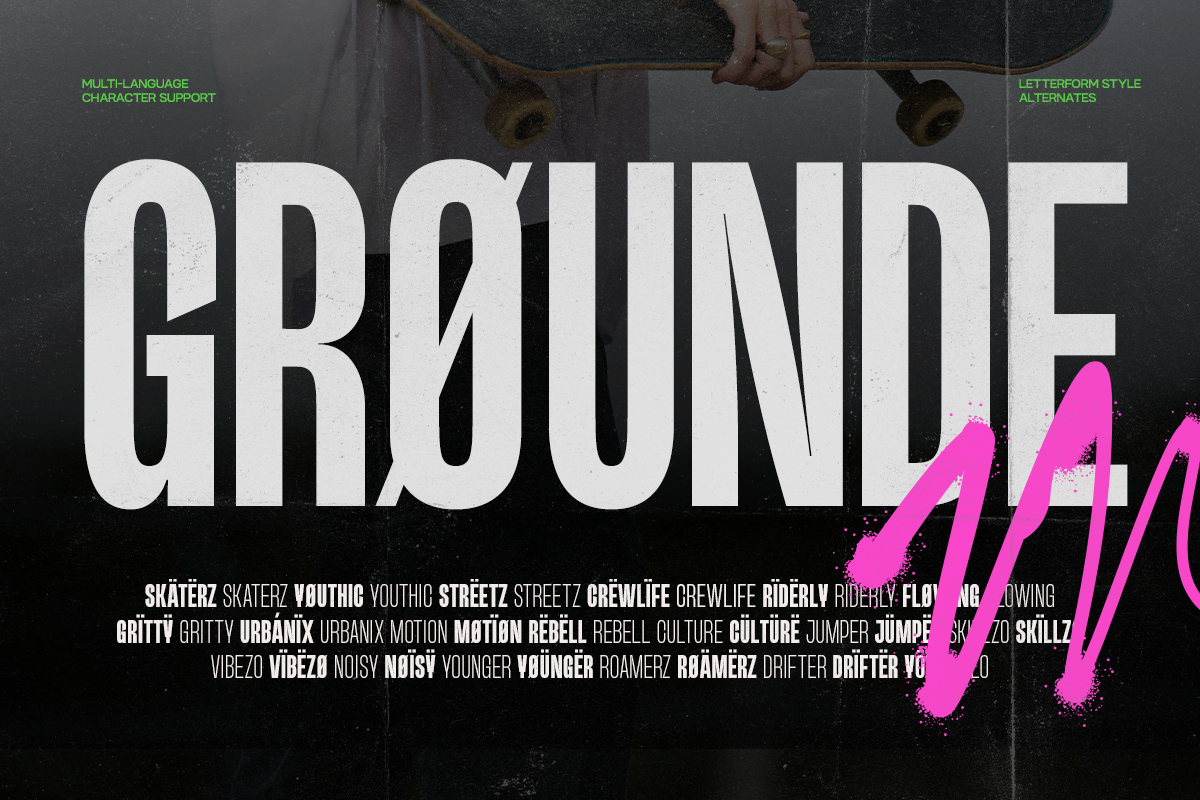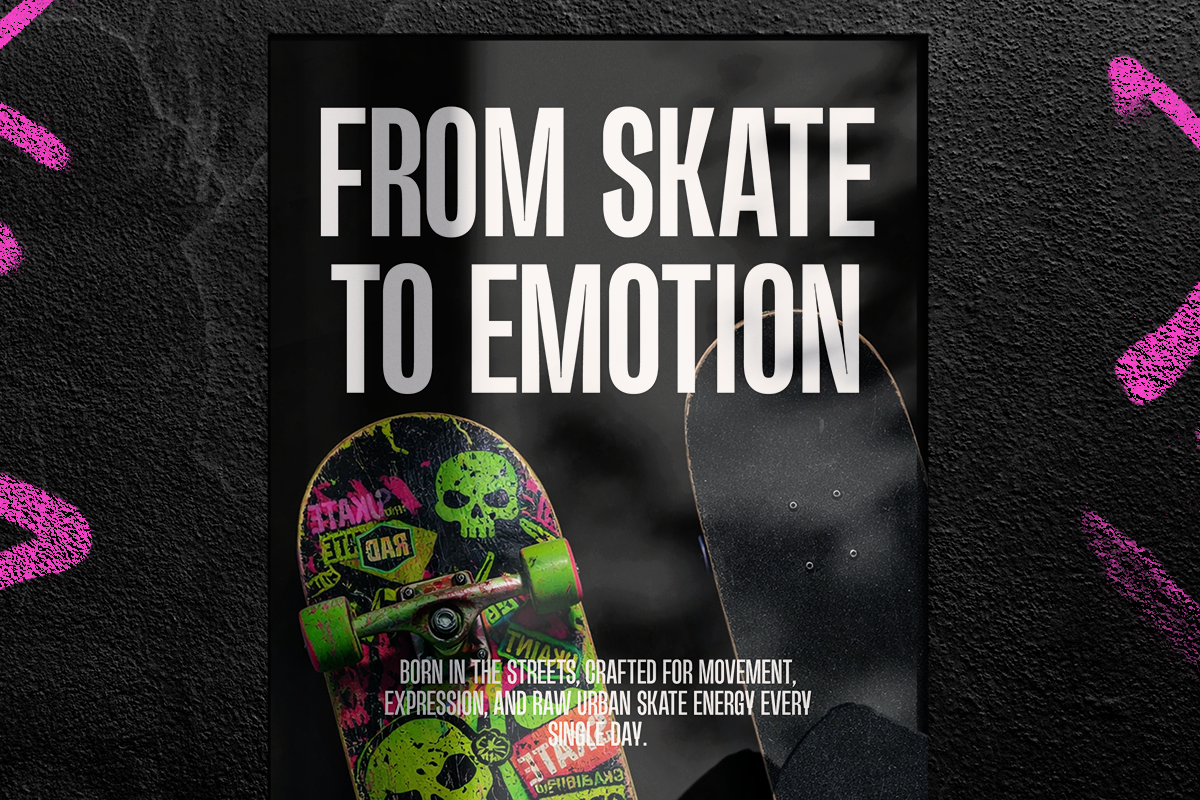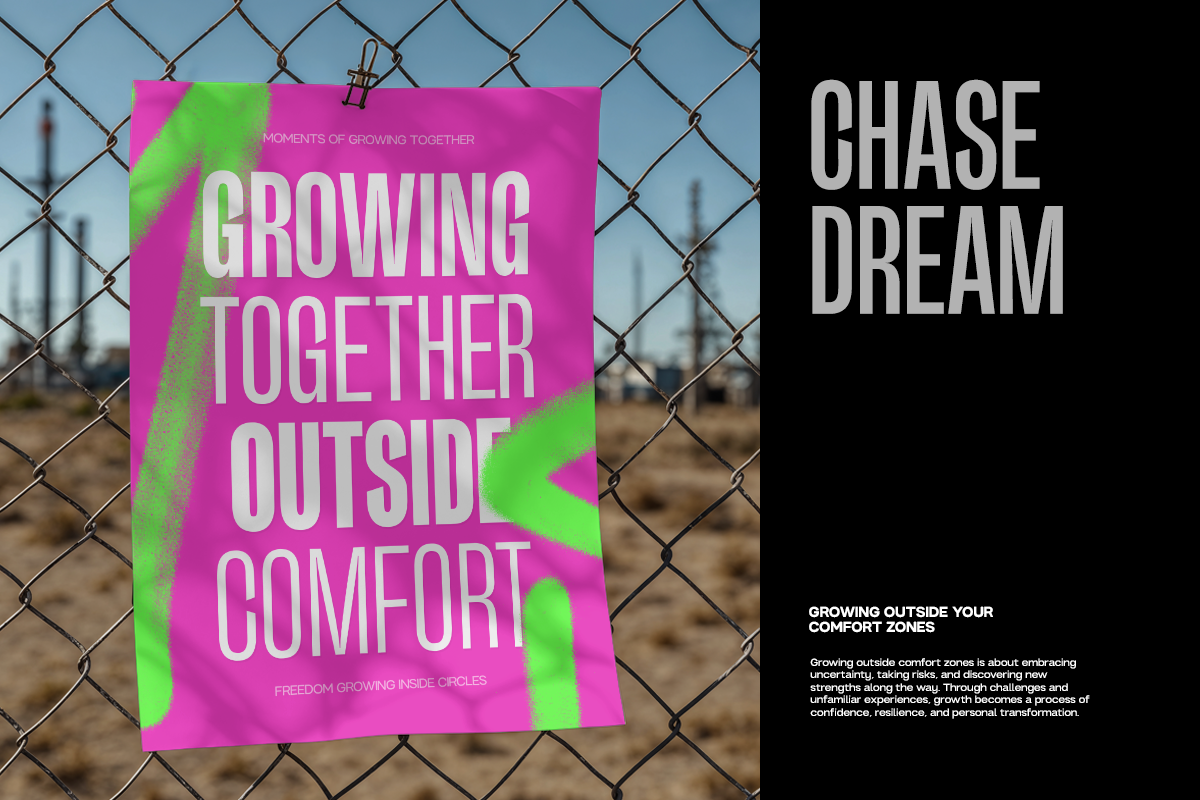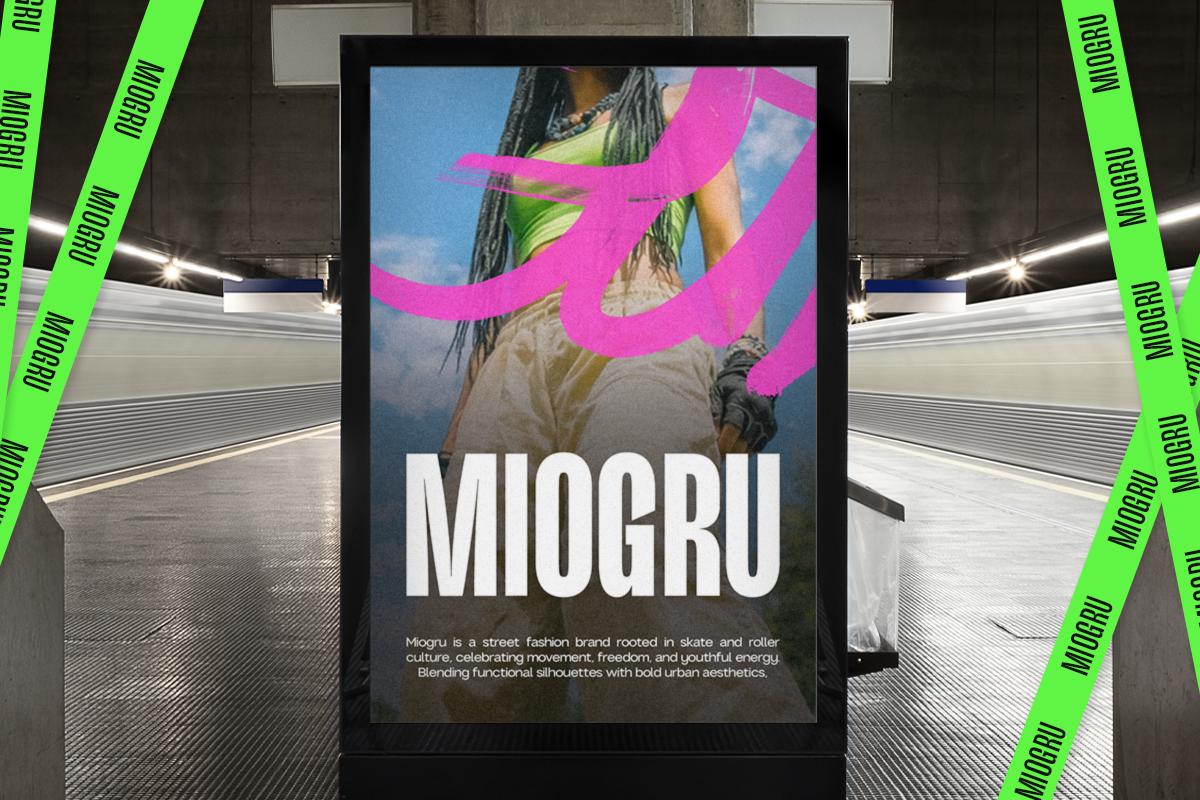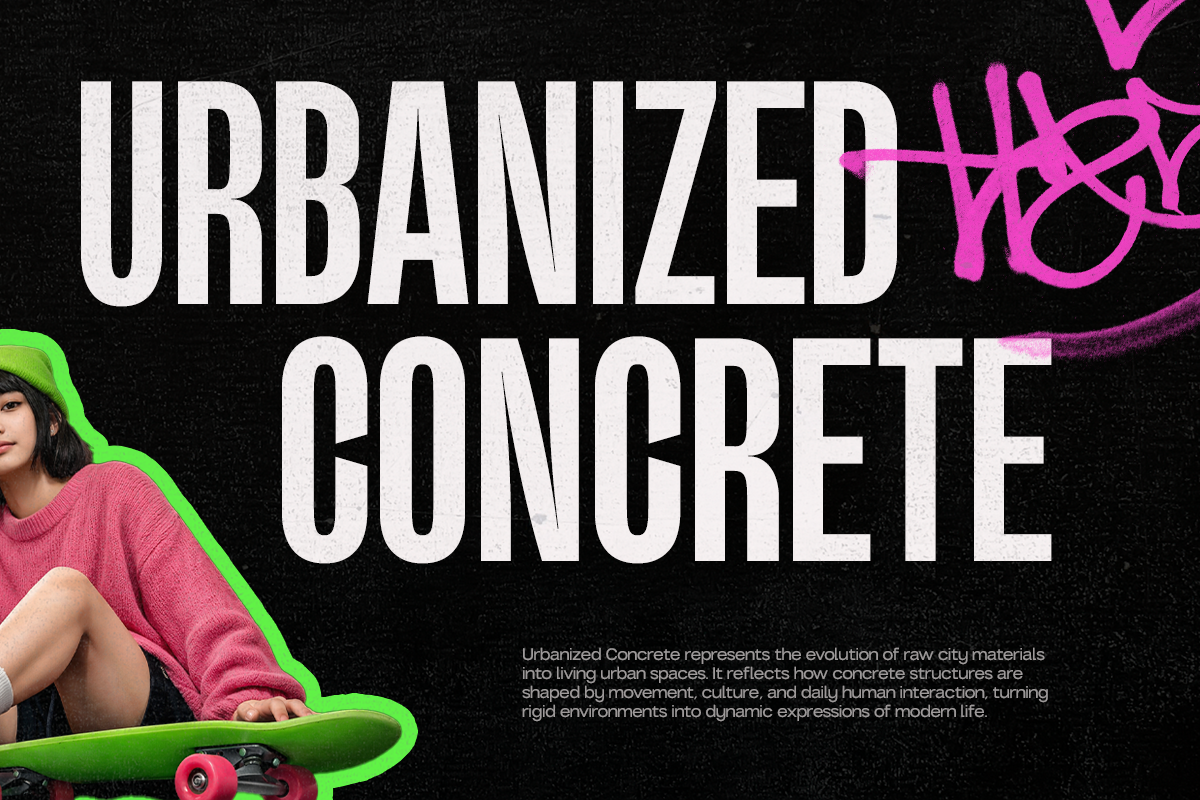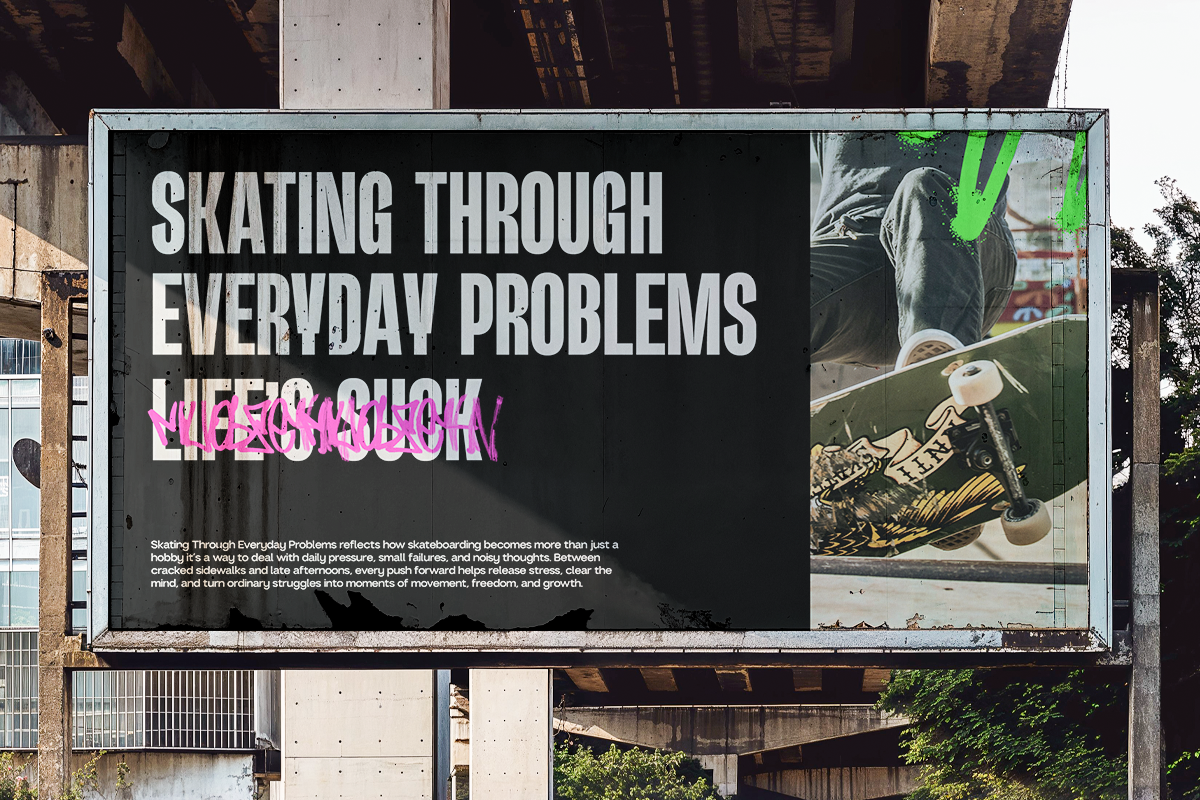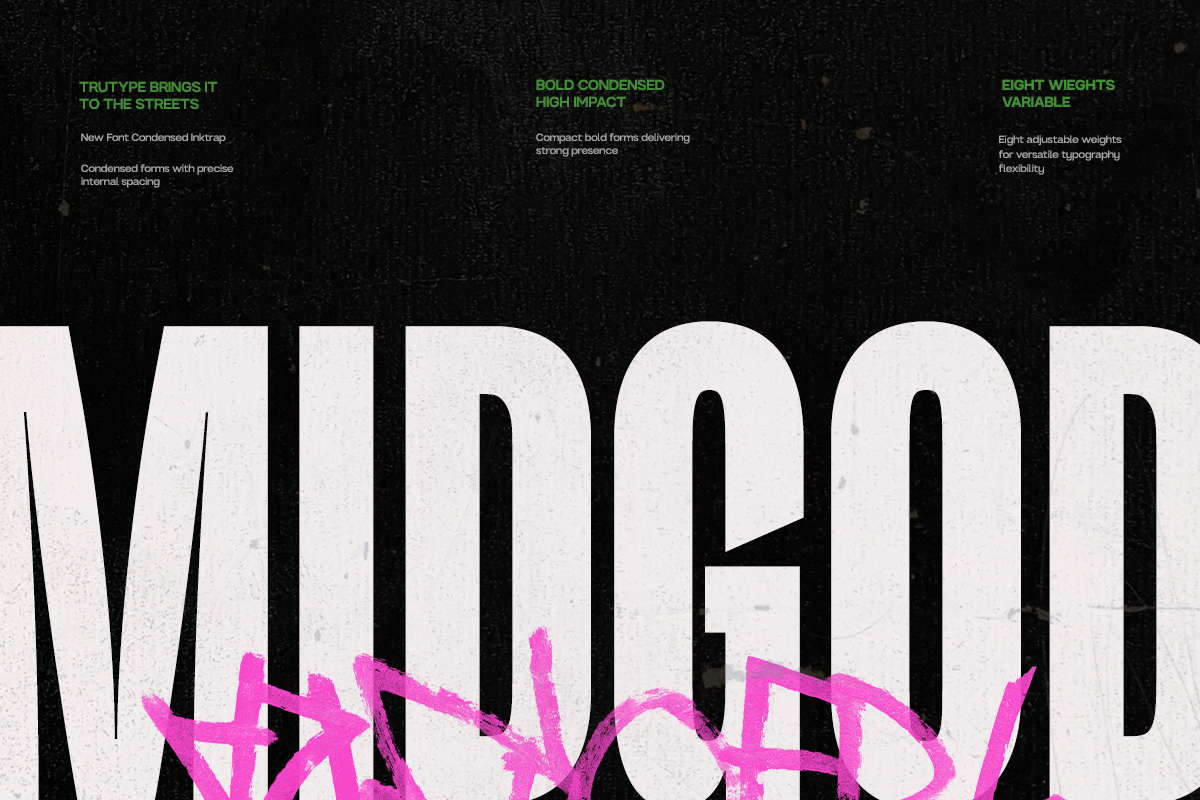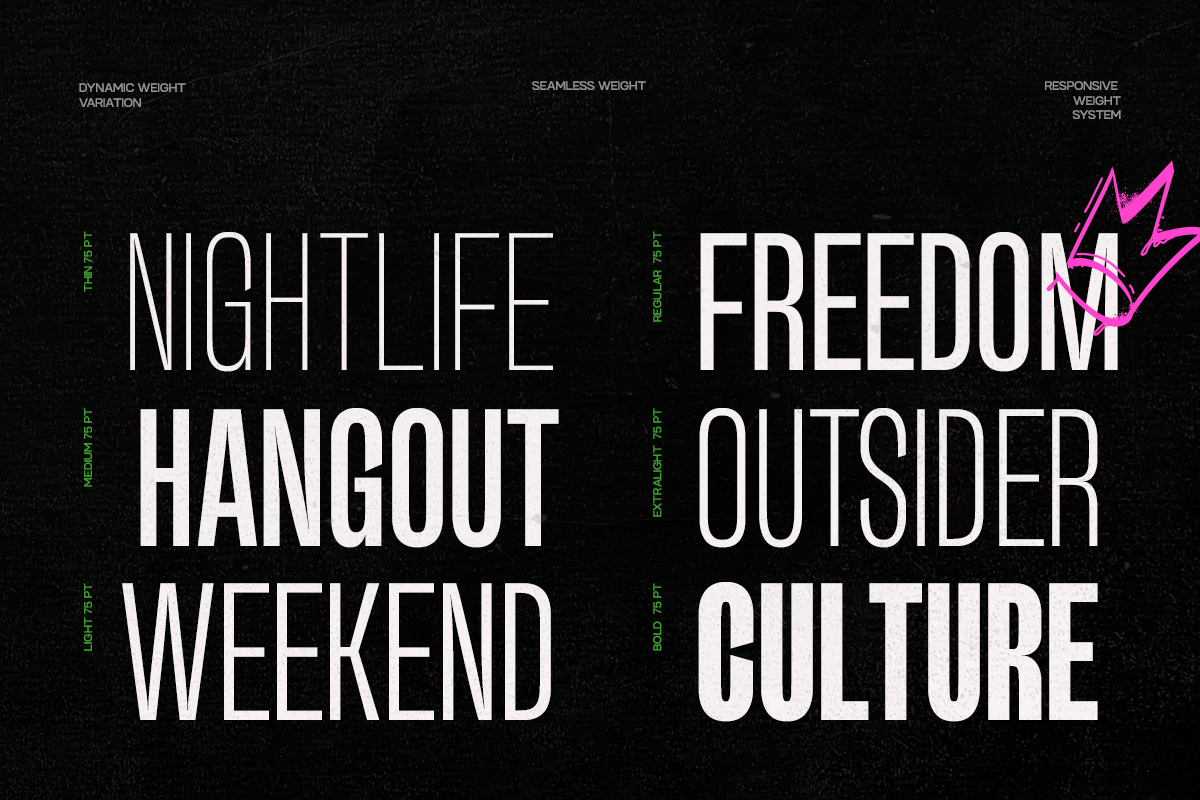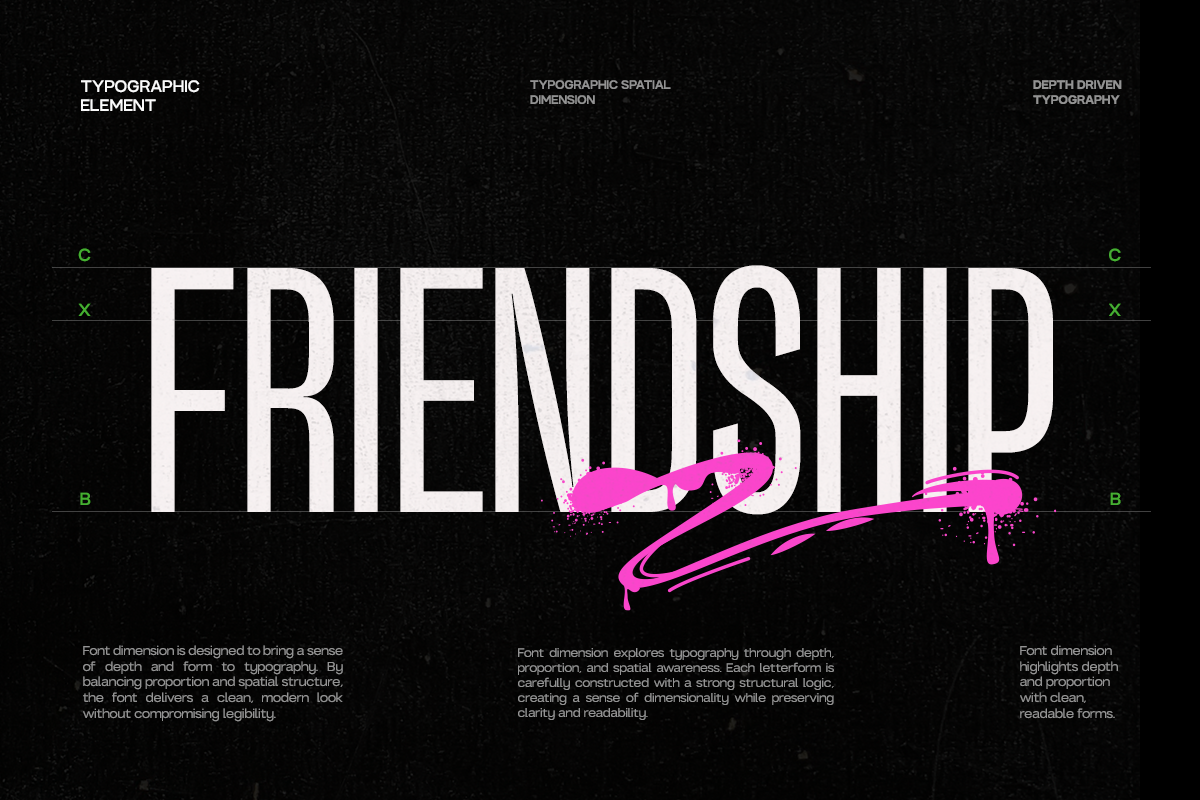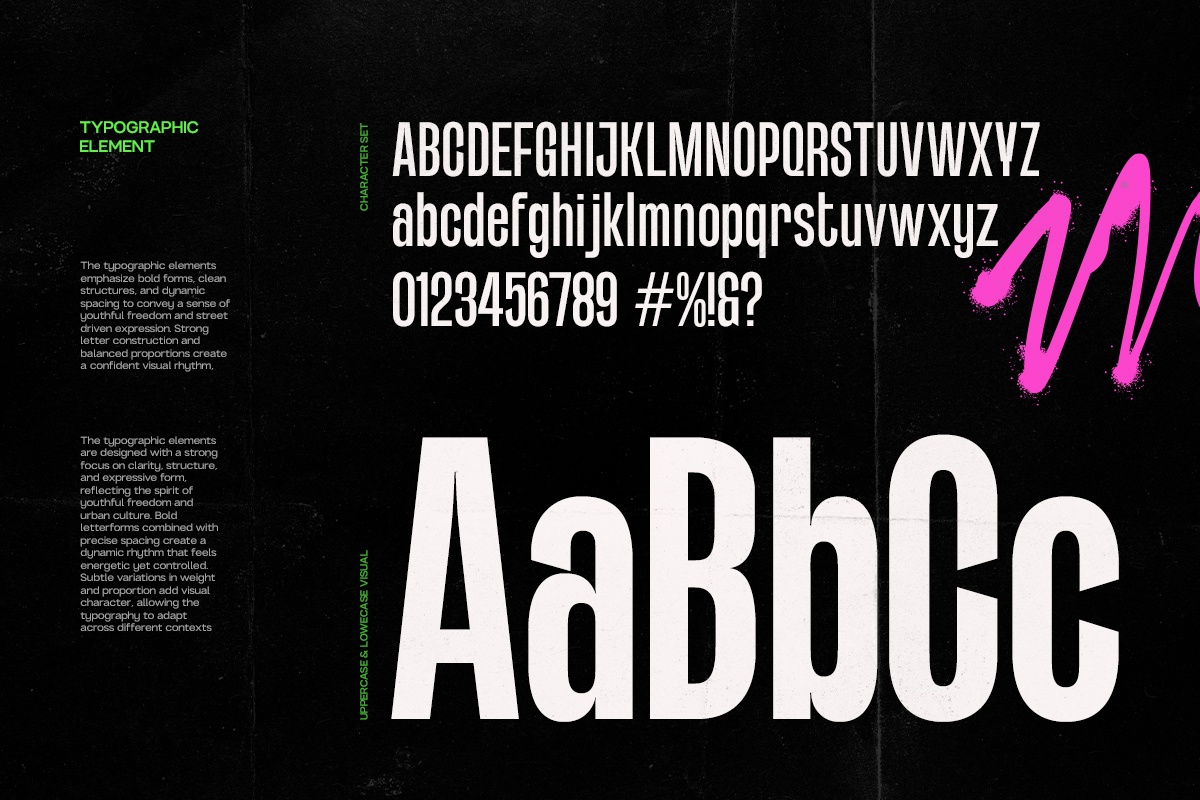
TRT Midgod Modern Condensed Ink Trap Display Font
Midgod created by Truetype is a condensed display typeface defined by precision, tension, and functional detail. Built with deliberate ink trap construction, each letterform balances bold presence with refined control—allowing the typeface to perform confidently across dense layouts and large-scale applications.
Its condensed proportions create a strong vertical rhythm, making Midgod ideal for headlines, posters, and editorial systems where space, hierarchy, and impact matter. The ink traps are not merely decorative; they enhance clarity, texture, and durability across print and digital environments, giving the typeface a distinctly contemporary edge.
Designed for branding and editorial, Midgod transforms words into visual anchors. From magazine covers and cultural campaigns to brand identities and digital platforms, it delivers a composed yet expressive voice—structured, modern, and unmistakably bold.